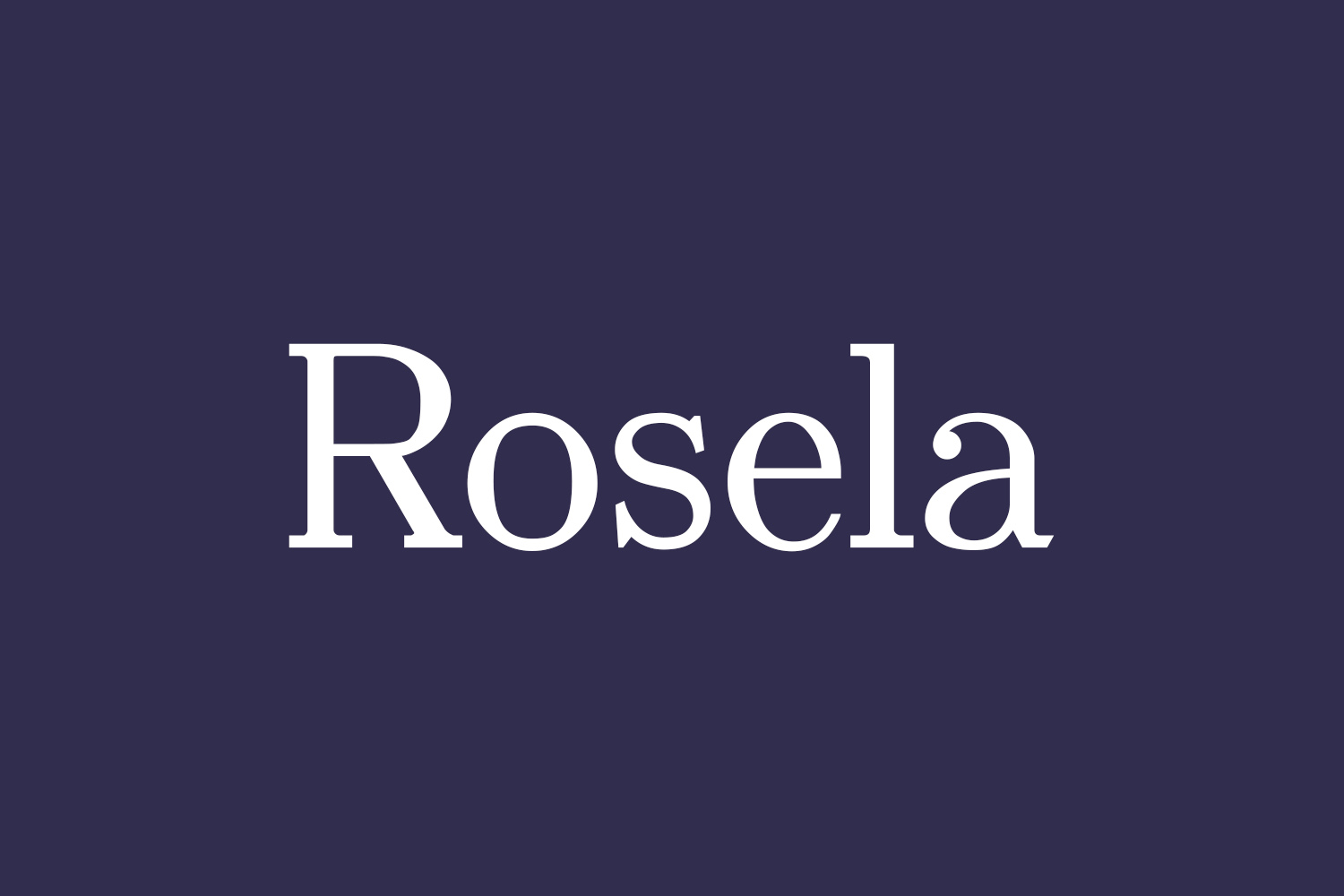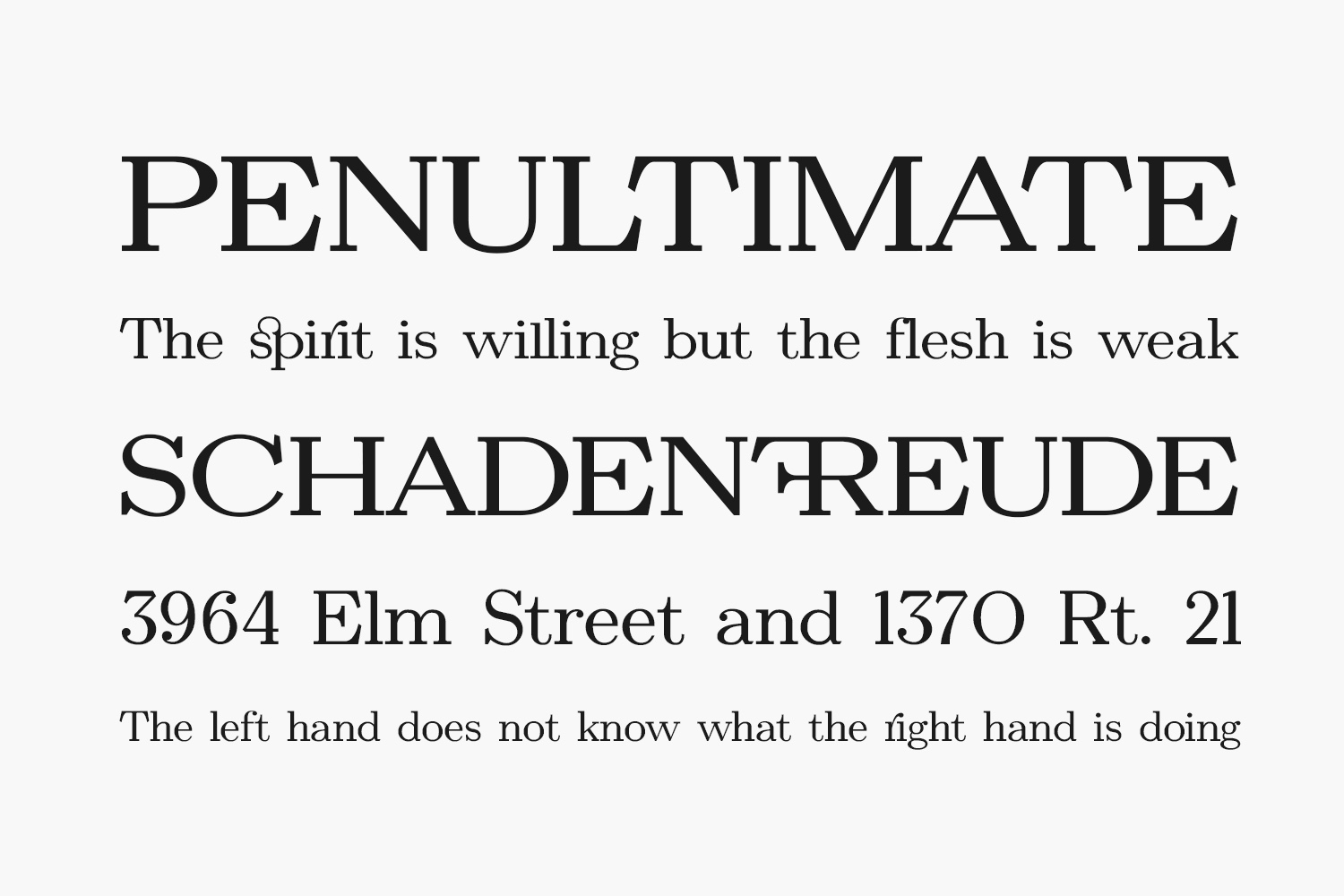
Experience the elegance of Rosela Free Font, a captivating series of letters designed for modern and visually pleasing writing. The meticulous lettering provides a neat and contemporary appeal, offering a classic touch with enduring elegance for your writing needs. Rosela Free Font is free for personal use only. Please purchase the full version for commercial use.
Designed by Dwi Sulistyono